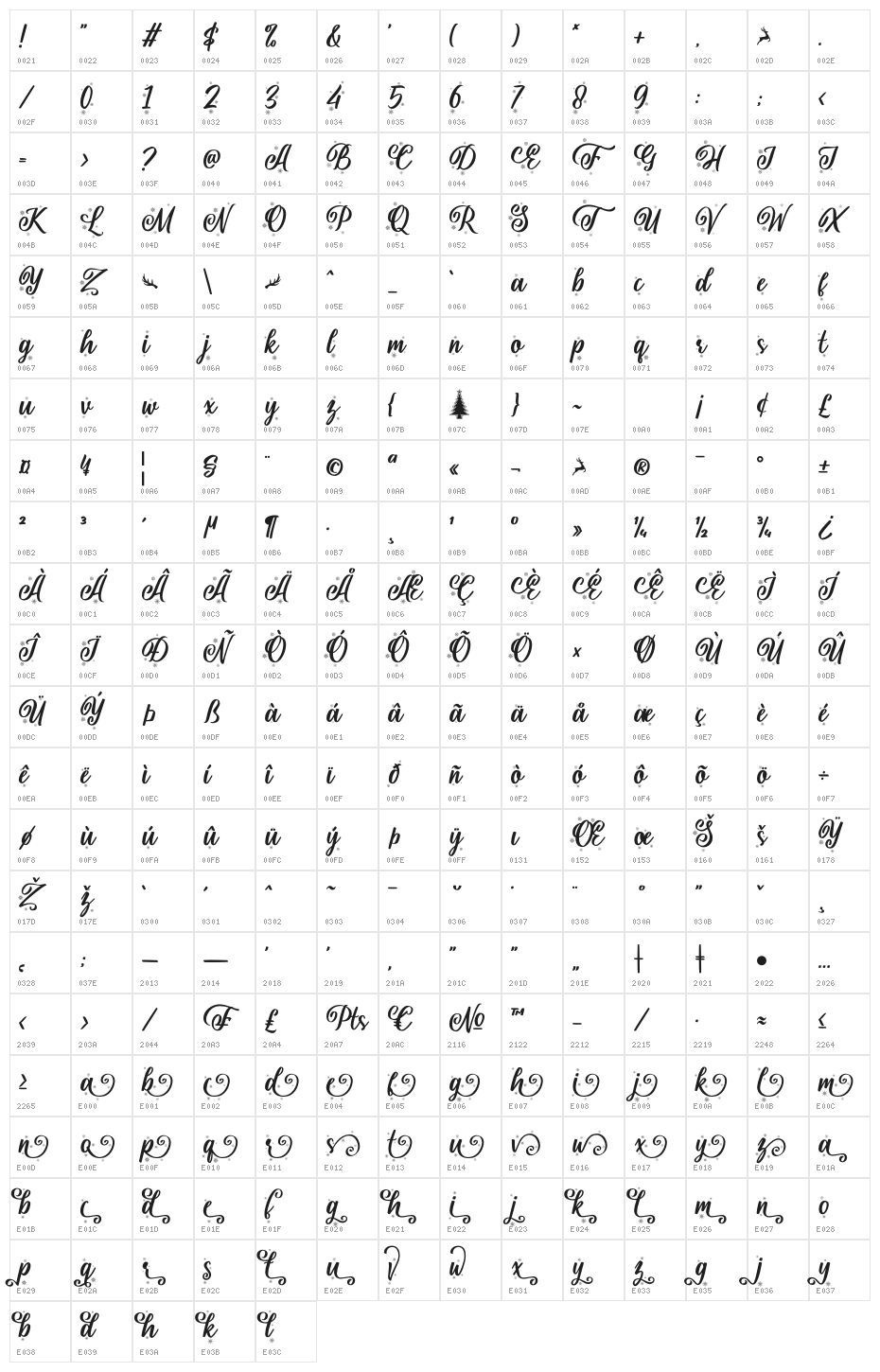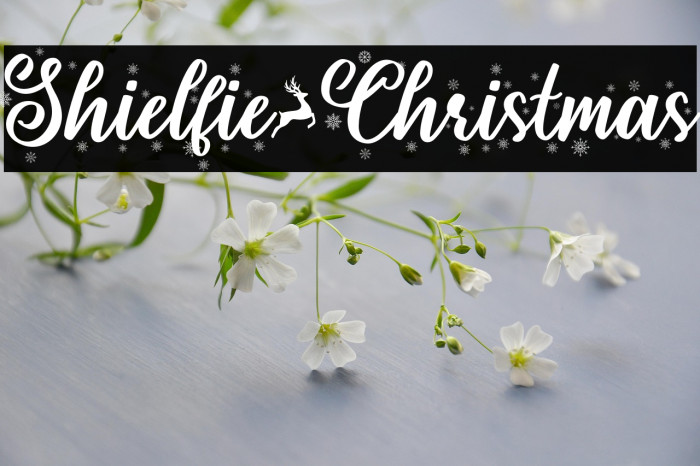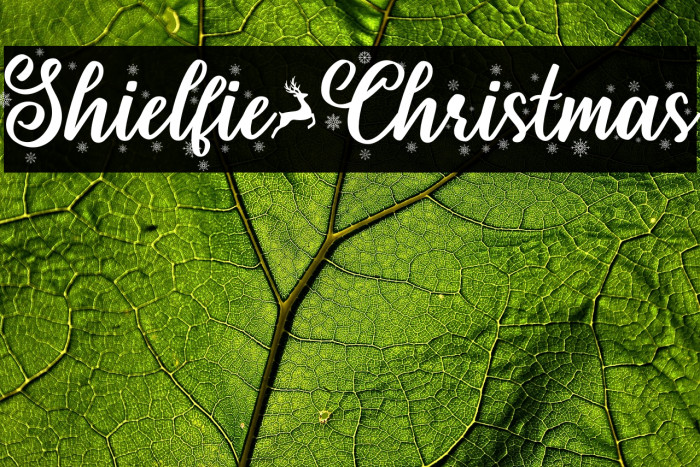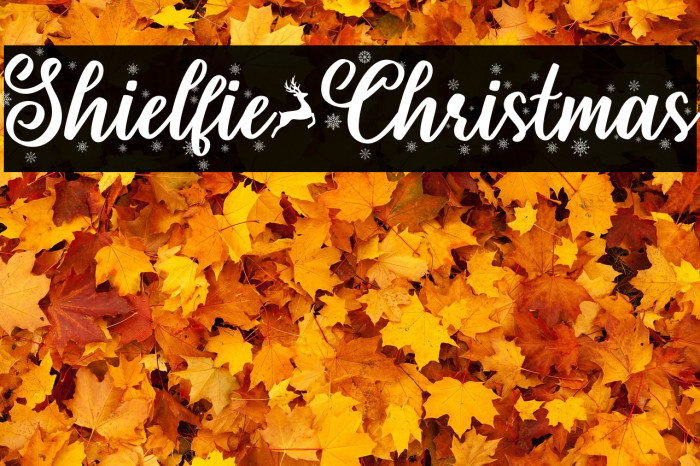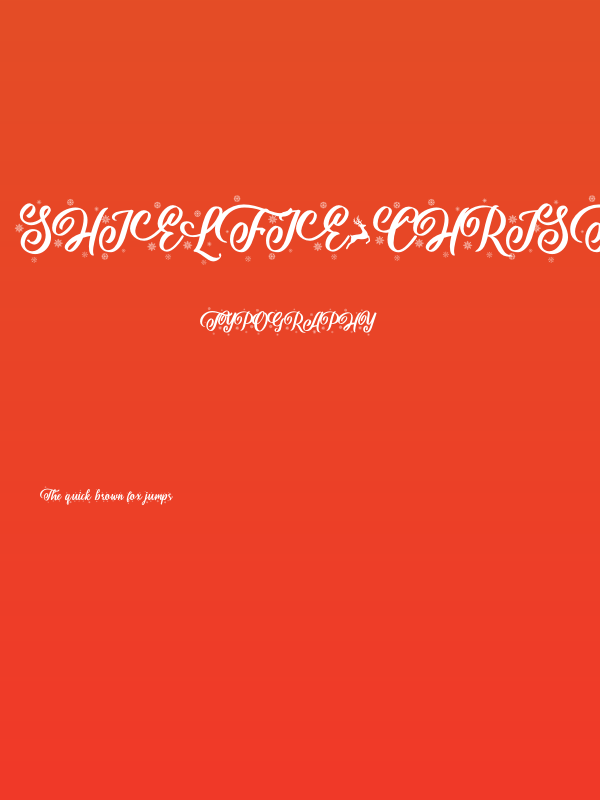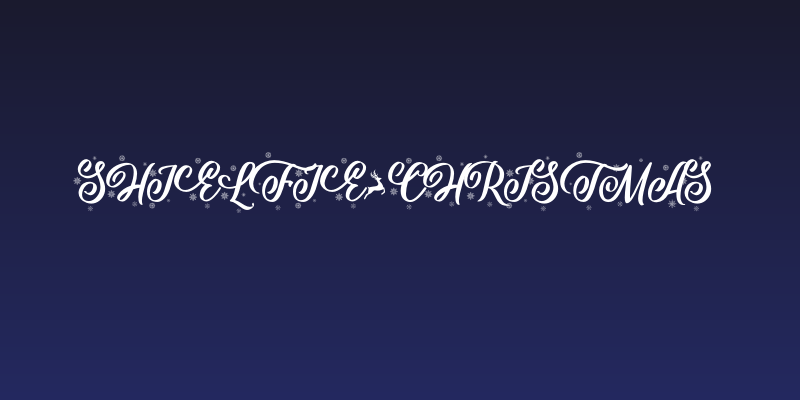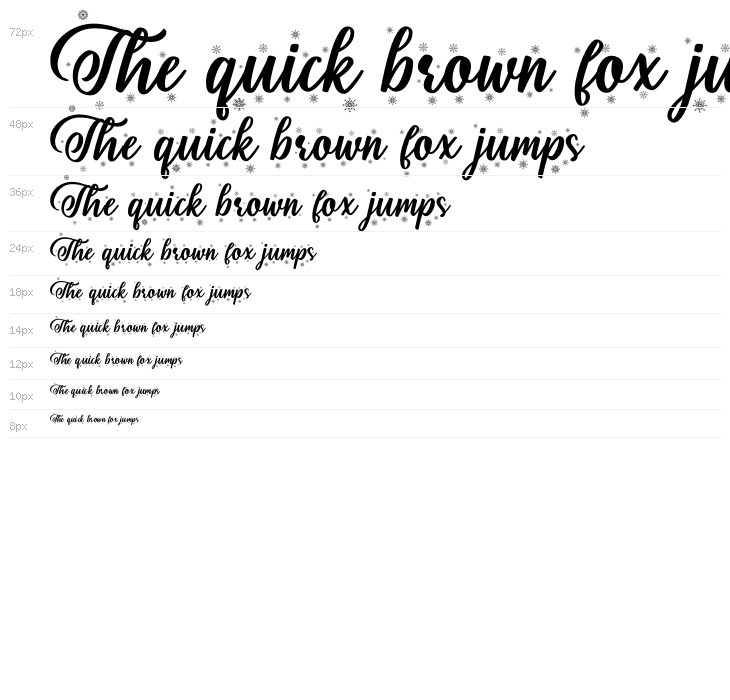
Shielfie-Christmas Font
Shielfie-Christmas Description
This festive font features a playful and elegant script style, adorned with snowflake accents that evoke a sense of holiday cheer. The uppercase letters are intricately designed with swirling curves and decorative elements, while the lowercase letters maintain a smooth, flowing appearance. The numerals and special characters are consistent with the overall theme, adding a whimsical touch to any design. Perfect for creating a warm and inviting atmosphere, this font is ideal for holiday cards, seasonal promotions, and festive invitations.
| Proposed Projects | Ideal for Christmas cards, holiday invitations, festive banners, and seasonal marketing materials. |